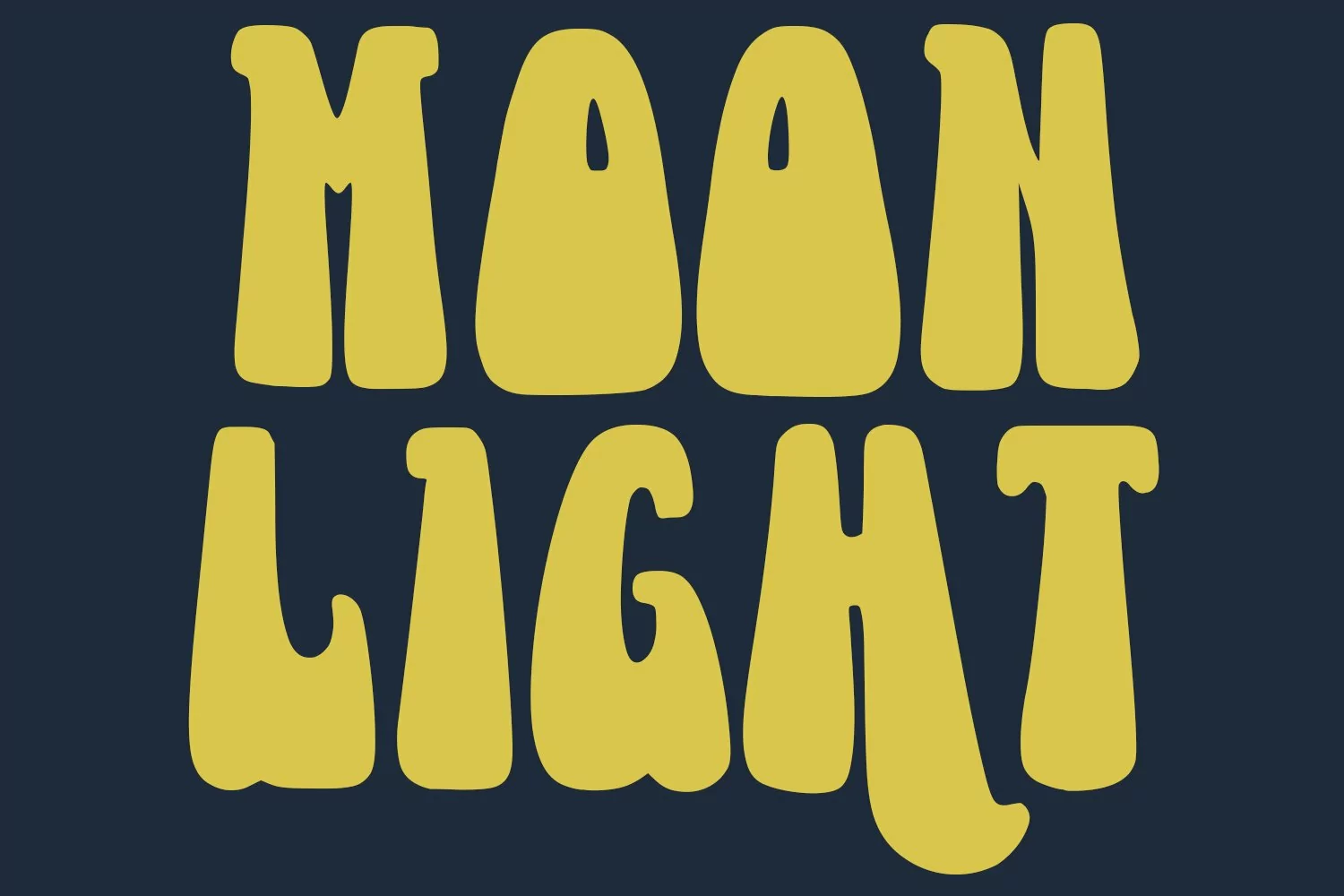
High Romantic is a decorative handwritten font. With heavy stroke, psychedelic retro groovy character. To give you an extra creative work. High Romantic font support multilingual more than 100+ language. This font is good for logo design, Social media, Movie Titles, Books Titles, a short text even a long text letter and good for your secondary text font with sans or serif. Make a stunning work with High Romantic font.